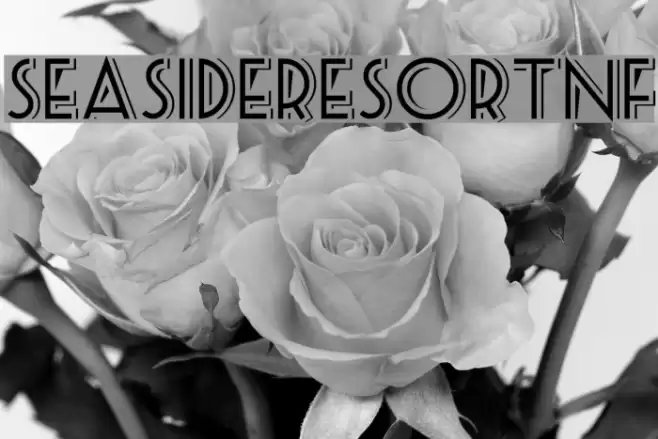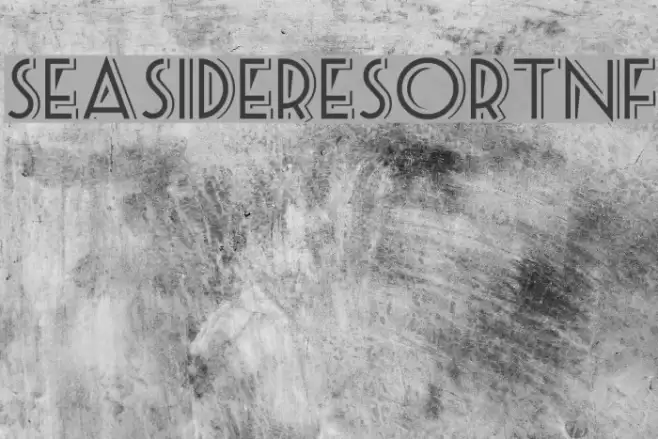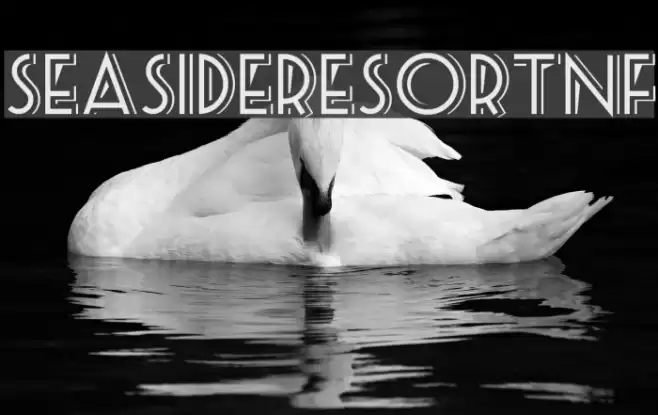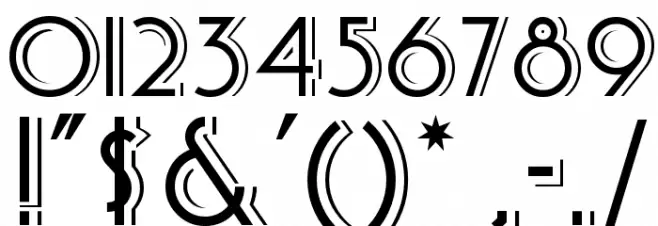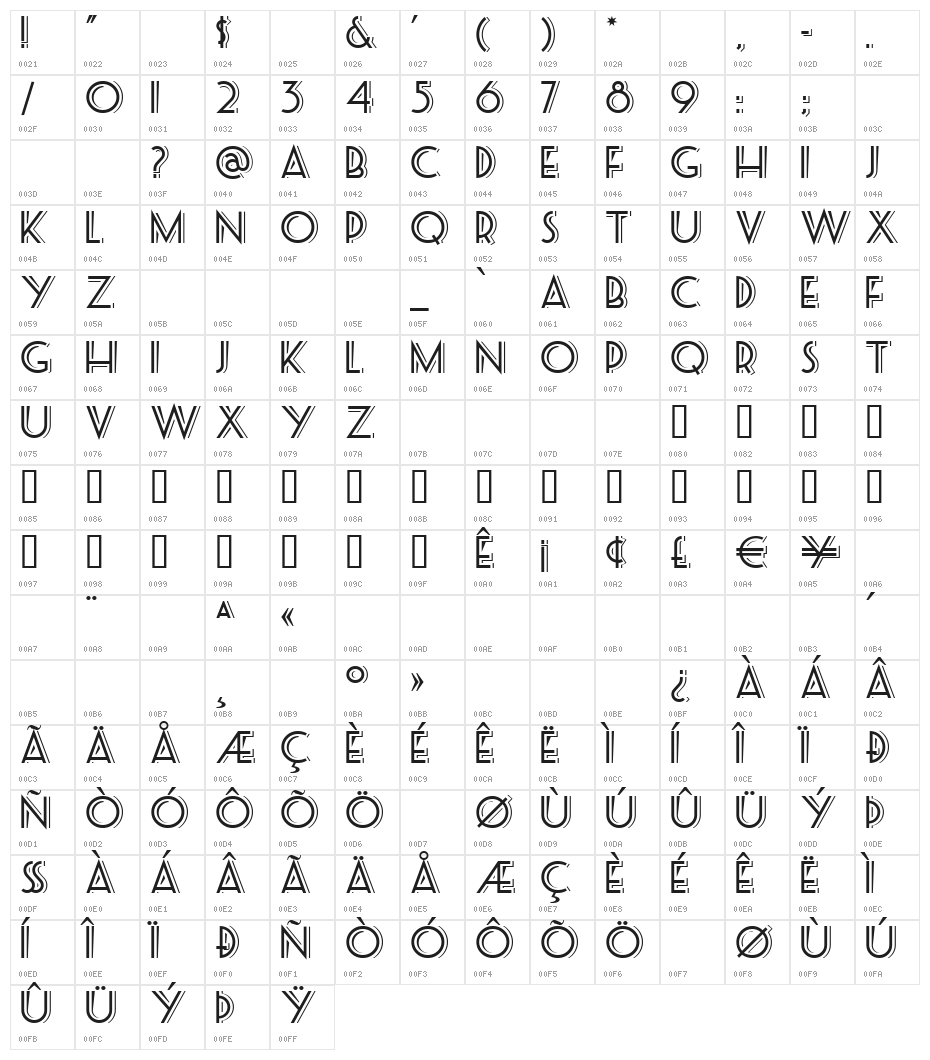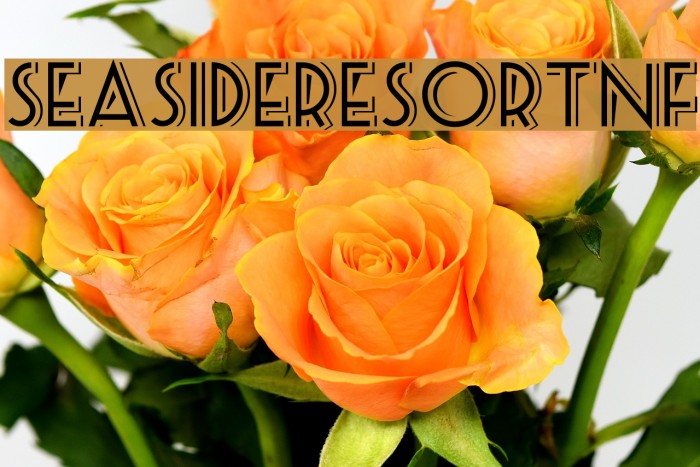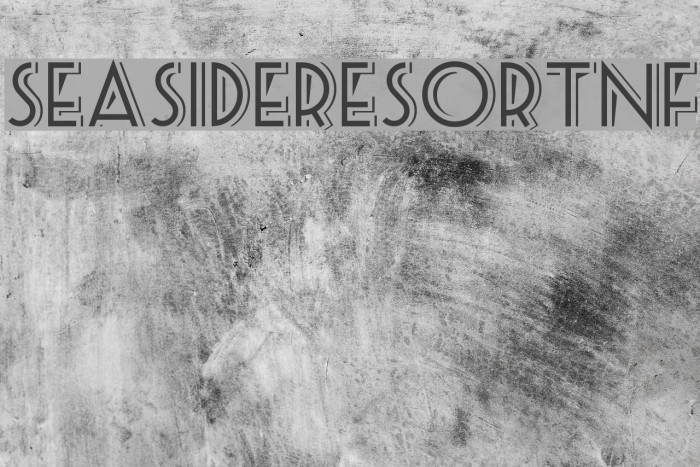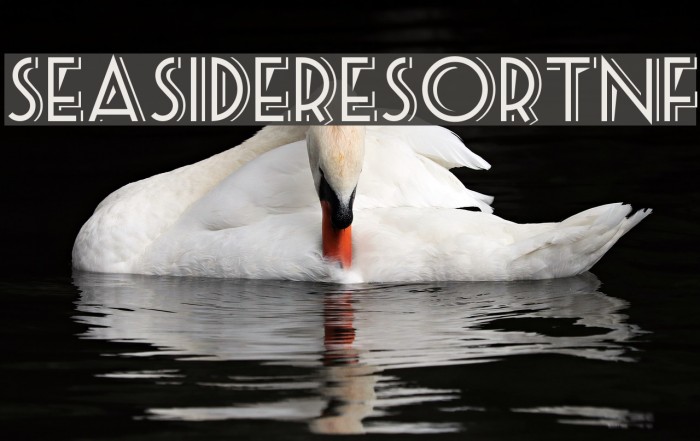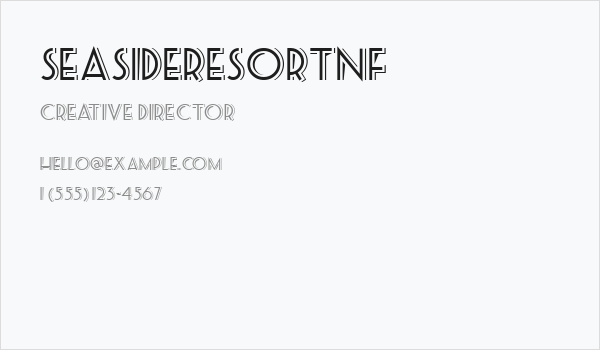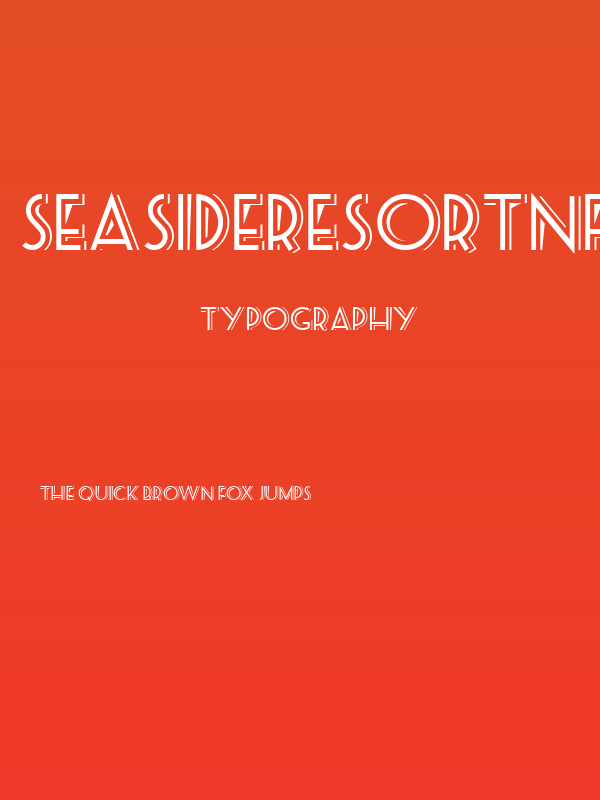
SeasideResortNF Font
SeasideResortNF Description
This font features a bold and decorative style with a distinct Art Deco influence. The characters are designed with geometric shapes and sharp angles, creating a sense of elegance and sophistication. The uppercase letters are particularly striking, with unique cutouts and lines that add to the overall visual interest. The numbers and special characters maintain the same decorative theme, ensuring consistency throughout the font. This typeface is ideal for projects that require a touch of vintage glamour and artistic flair.
A bold, Art Deco-inspired decorative font with geometric shapes and sharp angles from 3D fonts.
- Proposed Projects: Ideal for vintage-themed posters, luxury branding, event invitations, and editorial design.
- Overall Style: Vintage